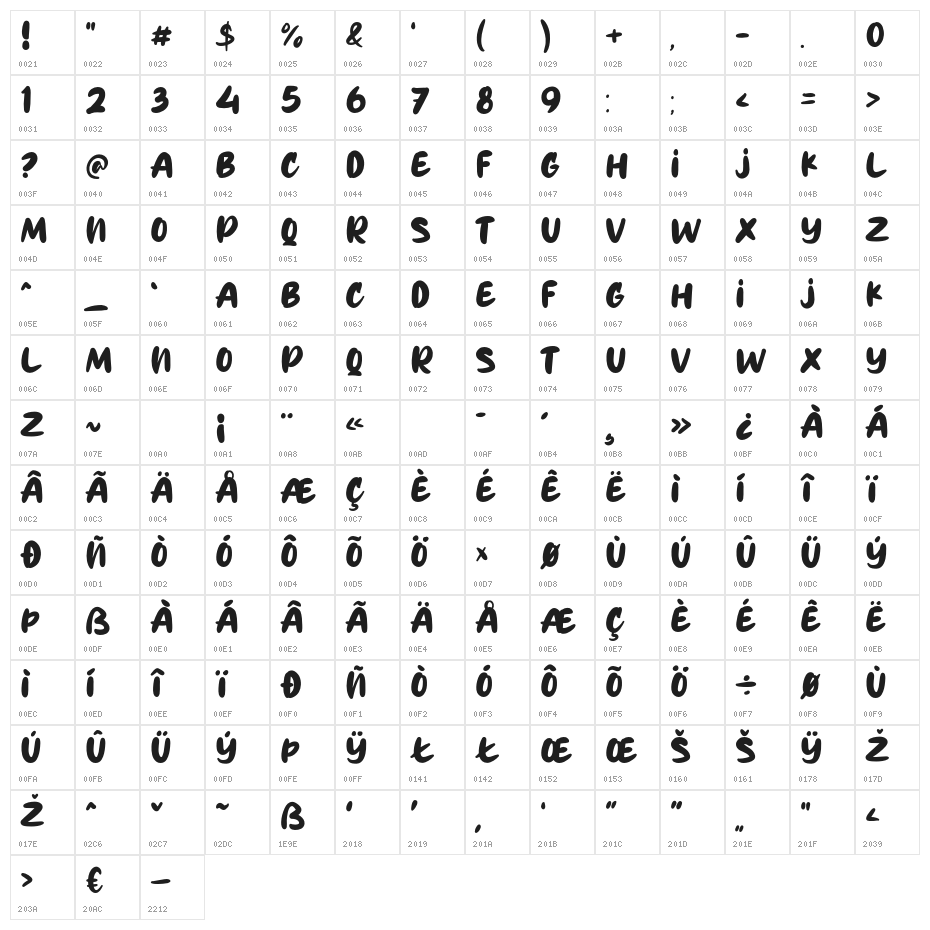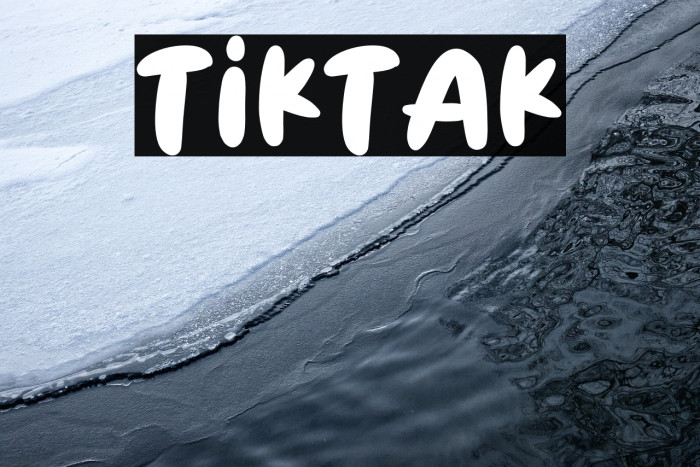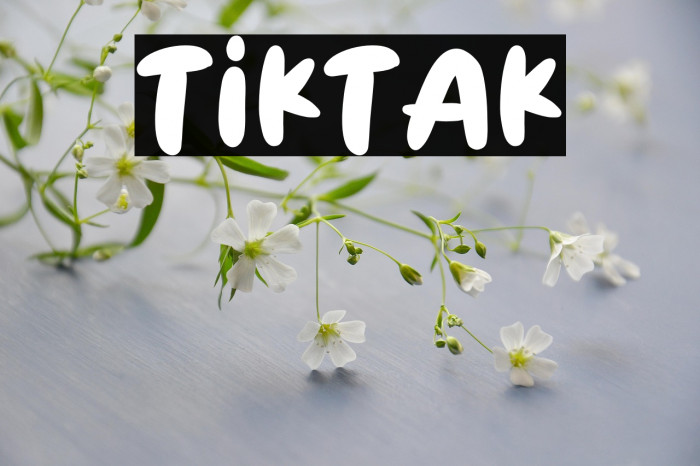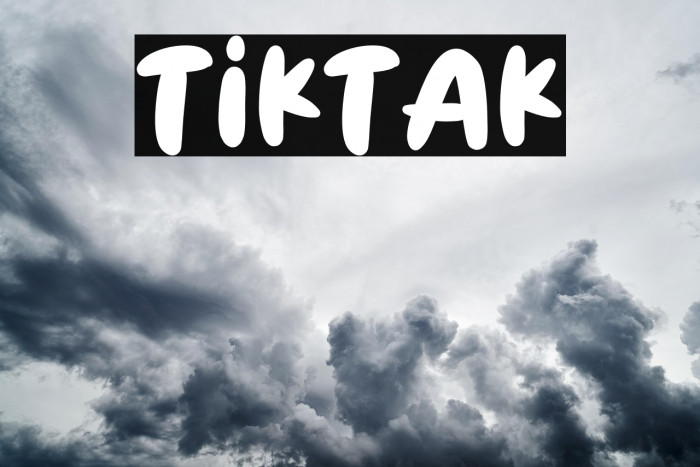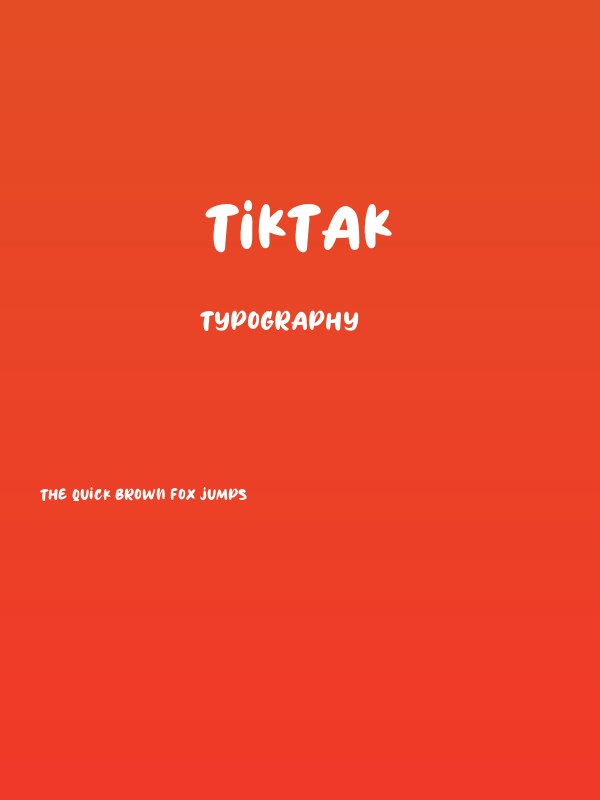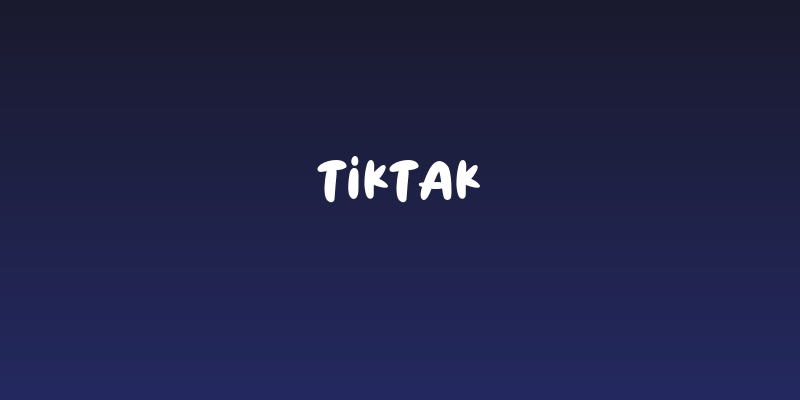
TIKTAK Font
TIKTAK Description
This font features a bold, playful style with rounded edges and a handwritten appearance. The characters are thick and have a consistent weight throughout, giving them a strong presence on the page. The letters are slightly slanted, adding a dynamic and informal feel. The uppercase and lowercase letters maintain a uniform style, with the lowercase letters being slightly smaller in size. The numbers and special characters are designed to match the overall aesthetic, ensuring a cohesive look. This font is ideal for projects that require a fun and approachable vibe.
| Overall Style | Playful |
| Proposed Projects | Ideal for children's books, playful branding, casual invitations, and social media graphics. |